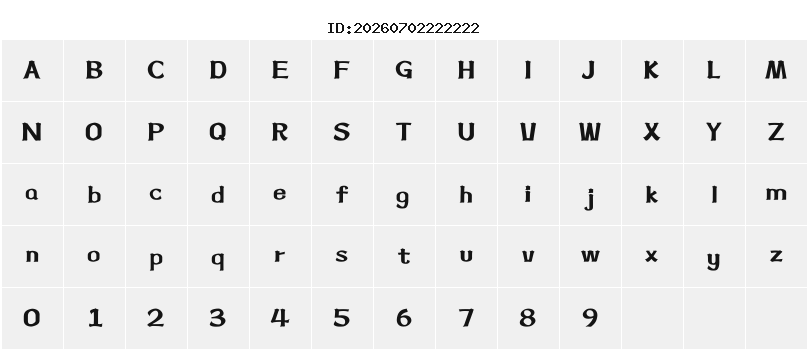
247-上首祥云体 Preview
247-上首祥云体.ttf is a modern, elegant sans-serif font designed for ultimate readability and visual harmony. Perfect for branding, headlines, web design, and print materials.